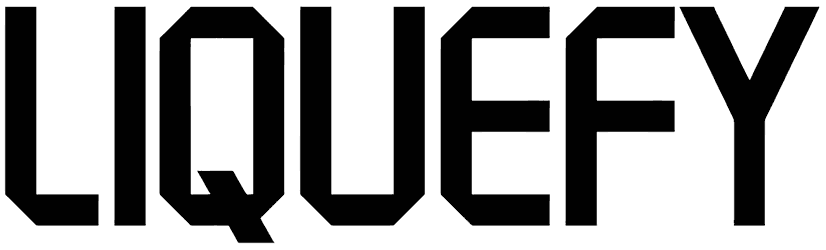
Liquefy Font
The geometrical style of a techno font, such as Liquefy, makes it look insanely perfect for a wide set of creative ideas, ranging from movie posters, social media posts, video game brochures, stickers, and digital banners.
This all-caps square font comes with bold and chunky letters; thus, it can share a vibe of dynamic, futuristic, vitality, or tenderness with the audience and easily engage them with your content. Also, check the RB archive to find other products like this one.